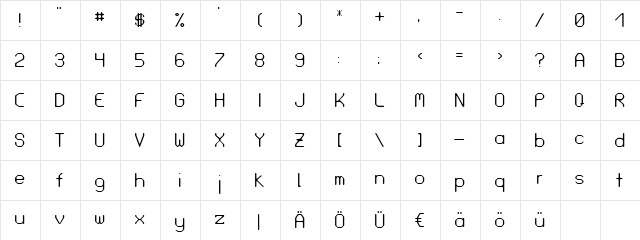
Love Parade Regular
Design Context for Love Parade Typeface
Love Parade is a composed and adaptable typeface that performs quietly and consistently across a wide range of design contexts.